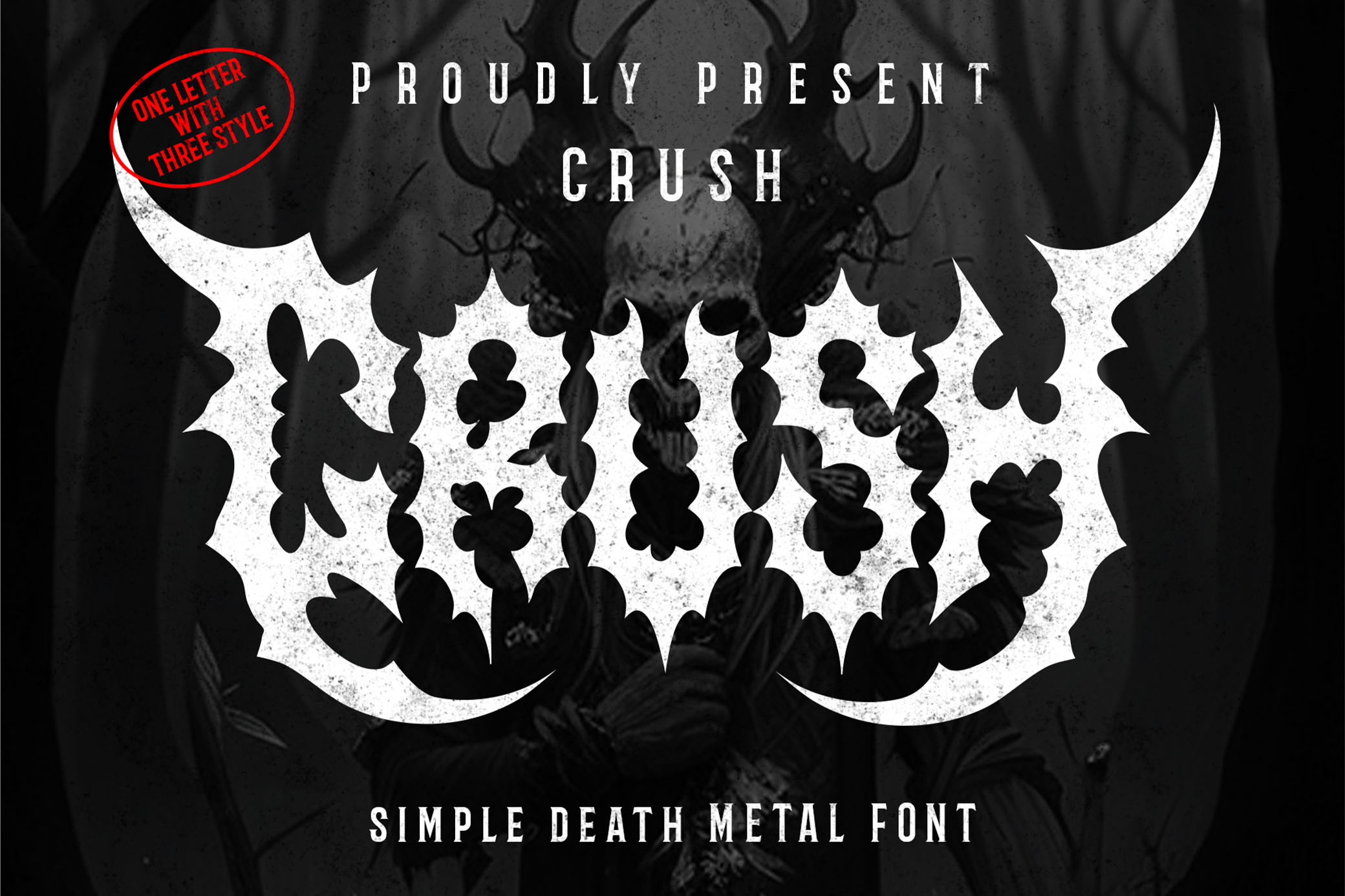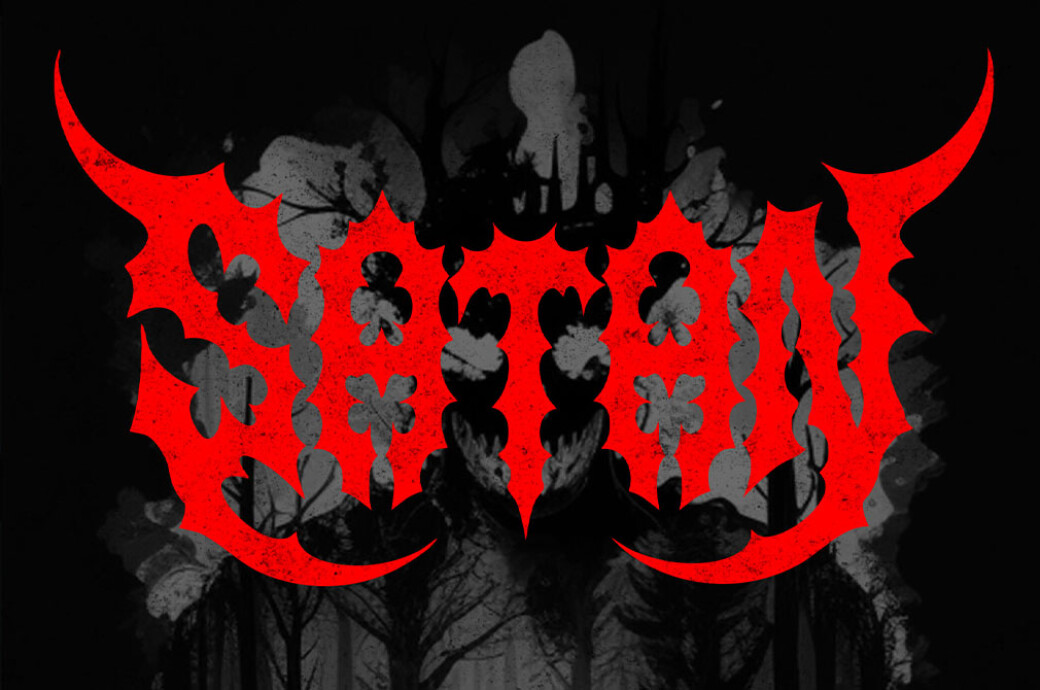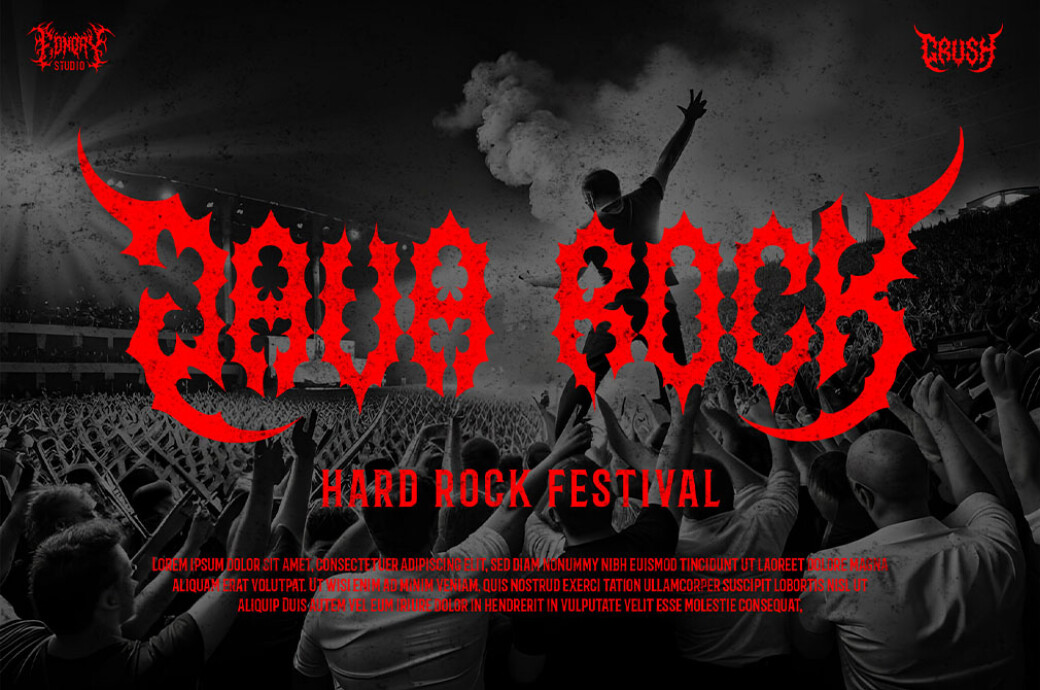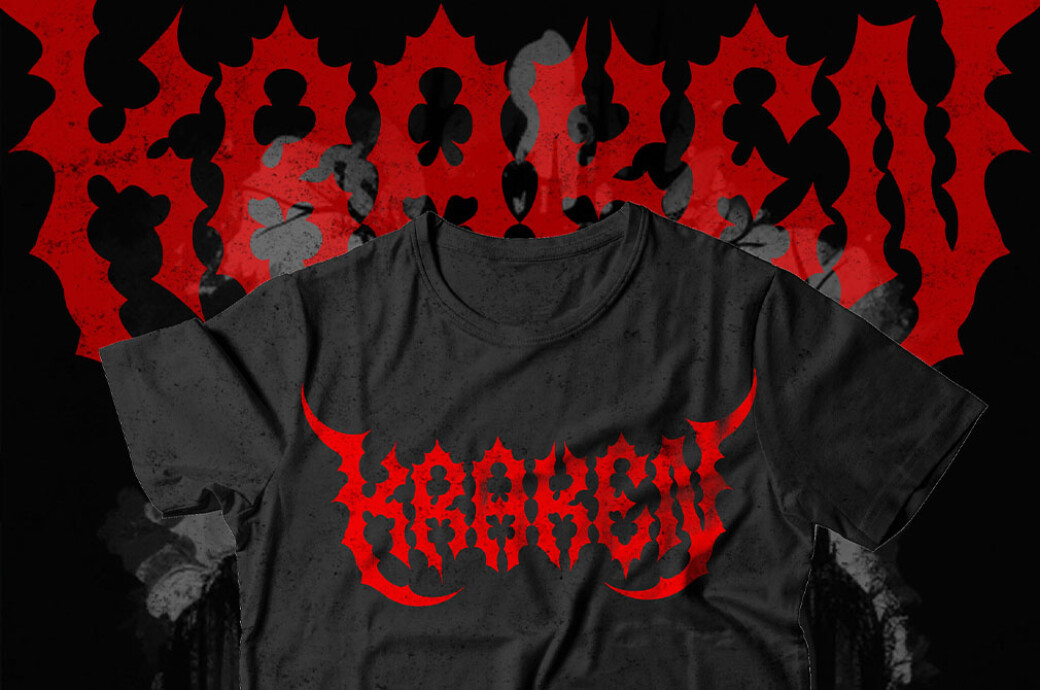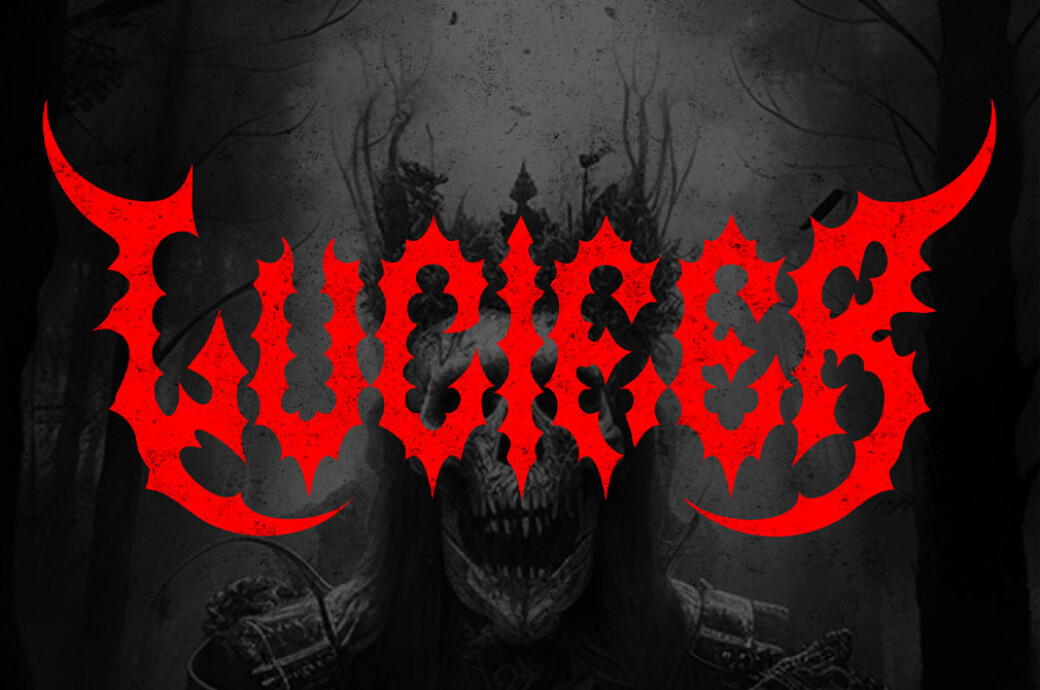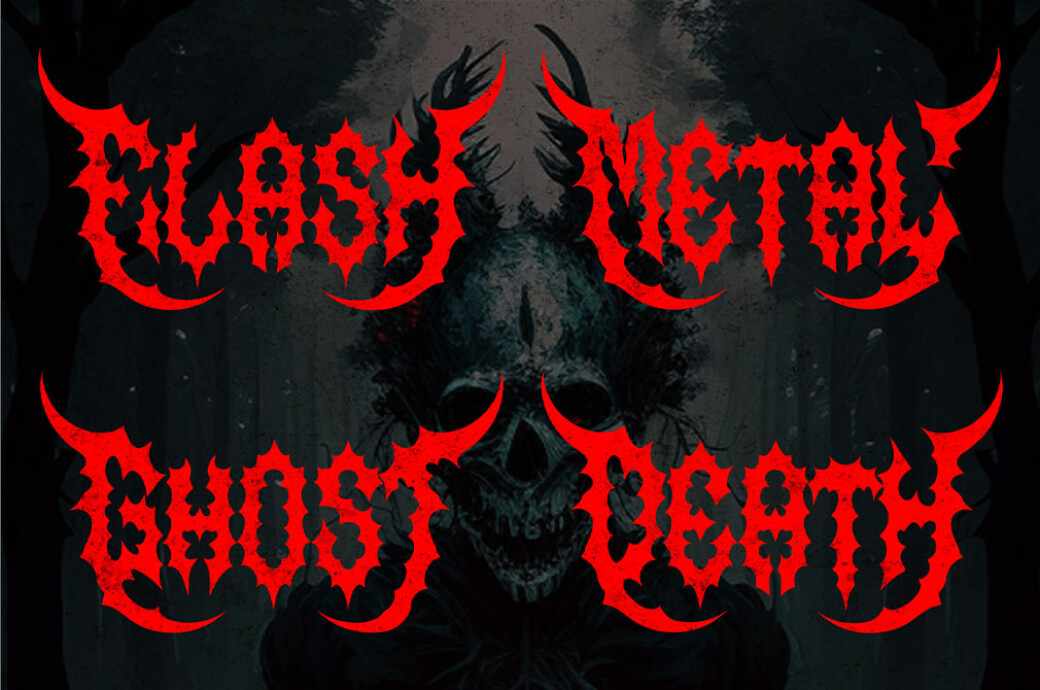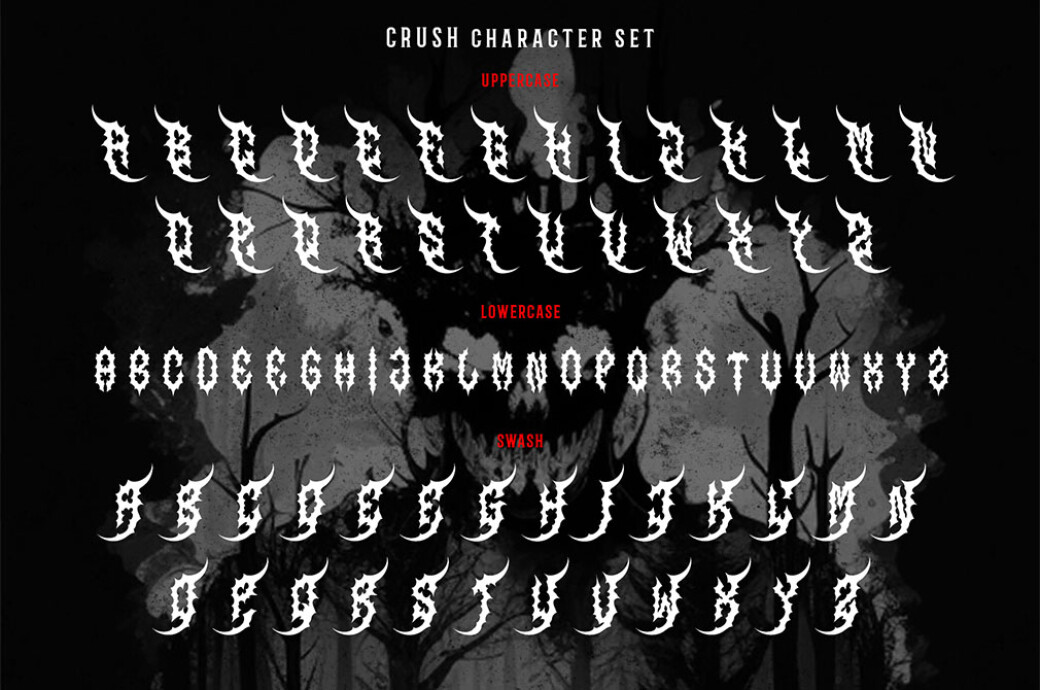
CRUSH – Simple Metal Font
Crush - Simple Metal Font
Introducing CRUSH, a bold and powerful font ideal for capturing the essence of metal music. With its simple yet impactful design, CRUSH is irreplaceable for designs that reflect metal bands' raw energy.CRUSH font provides upper and lowercases and a set of stylized swashes. With its unique style, bold shapes, and distinctive appearance, this font will help your designs stand out. Whether you're working on album covers or merchandise or promoting a metal concert, it will give your creations a memorable look that captures the essence of metal music.